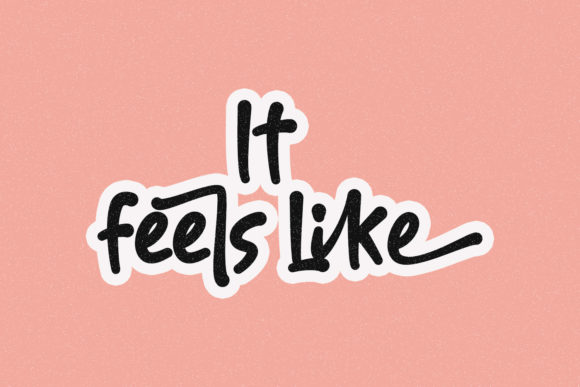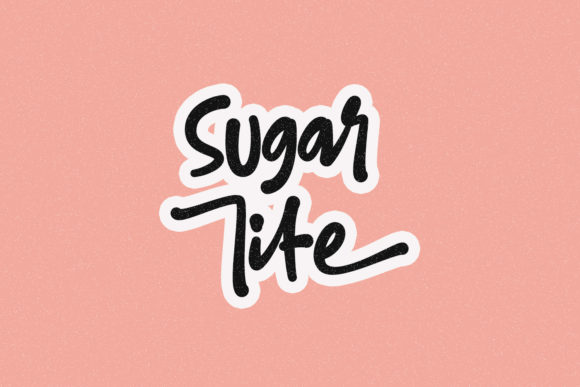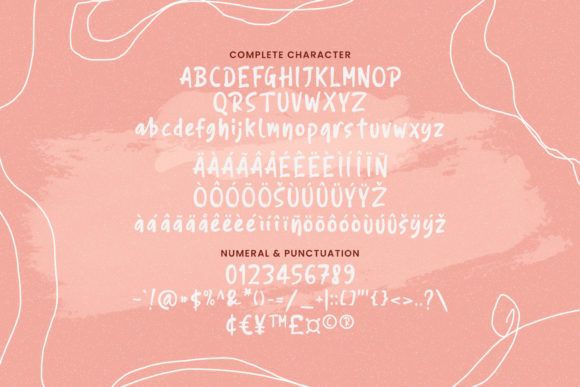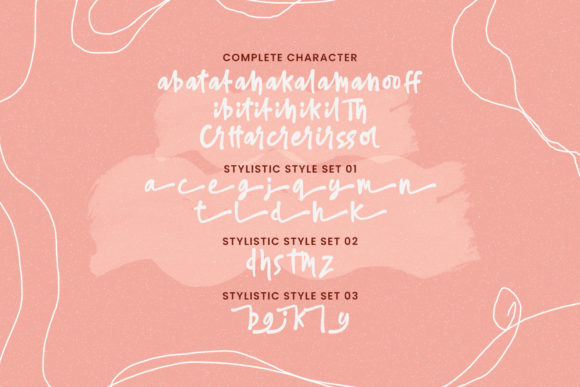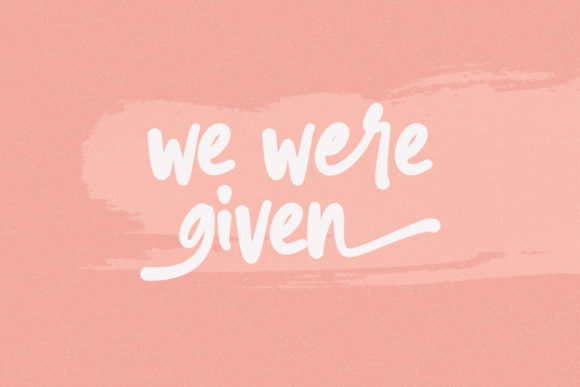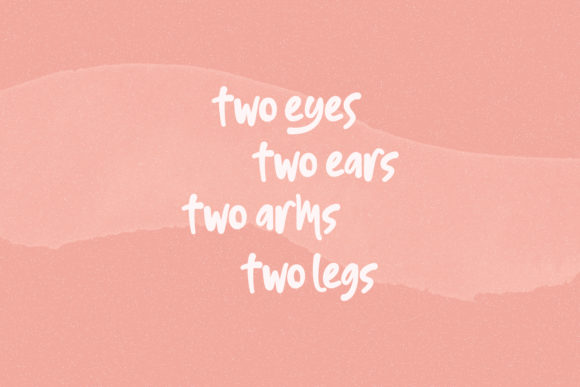
Introduction to Crisle Wolff Font
Crisle Wolff is an elegant and dainty handwritten font that features sweet and delicate swashes.
This original look will appeal to a wide range of crafty ideas, from letterheads and titles, to stationery .
Key Features of Crisle Wolff Font
Why Choose Crisle Wolff Font?